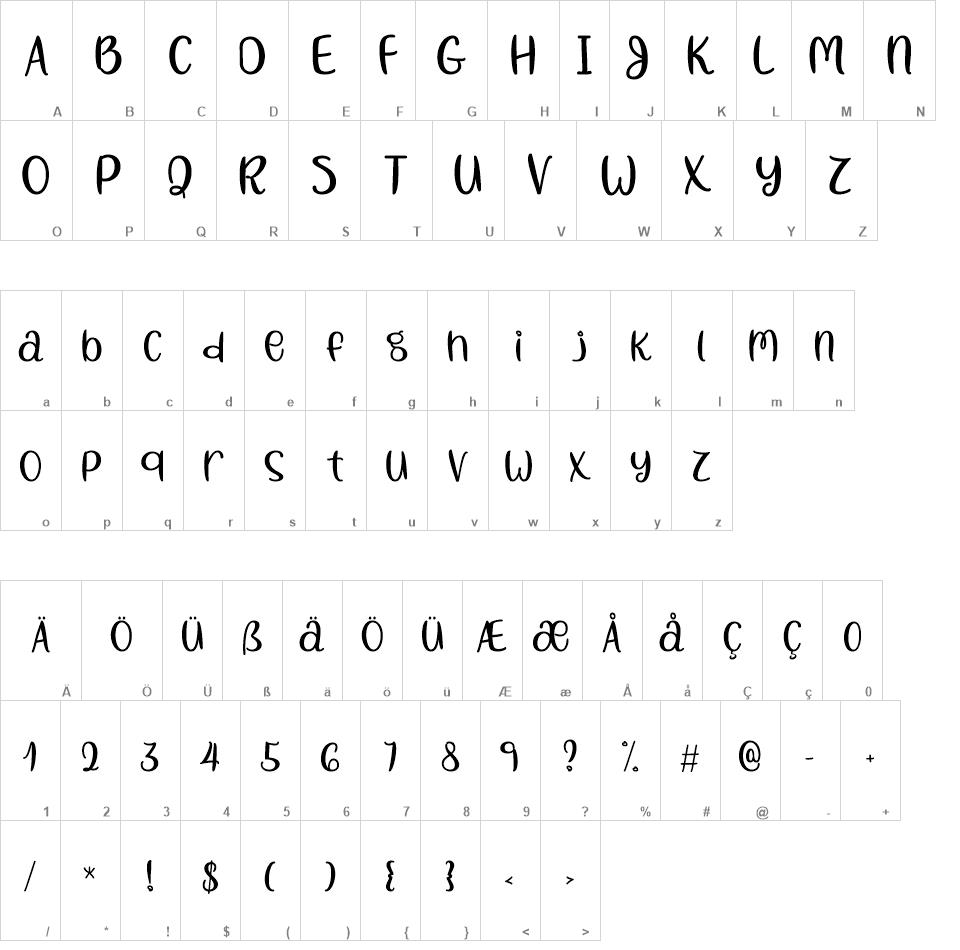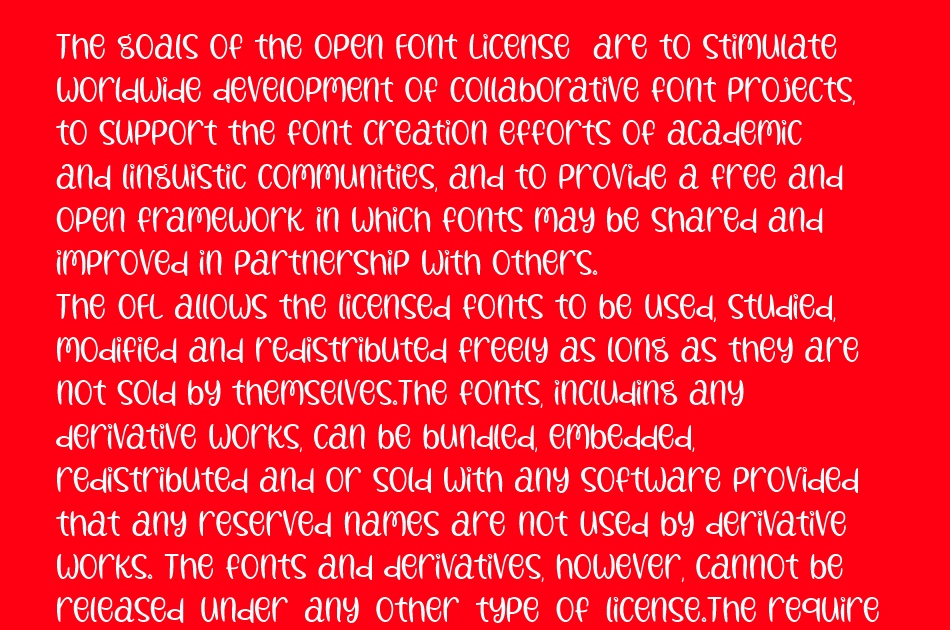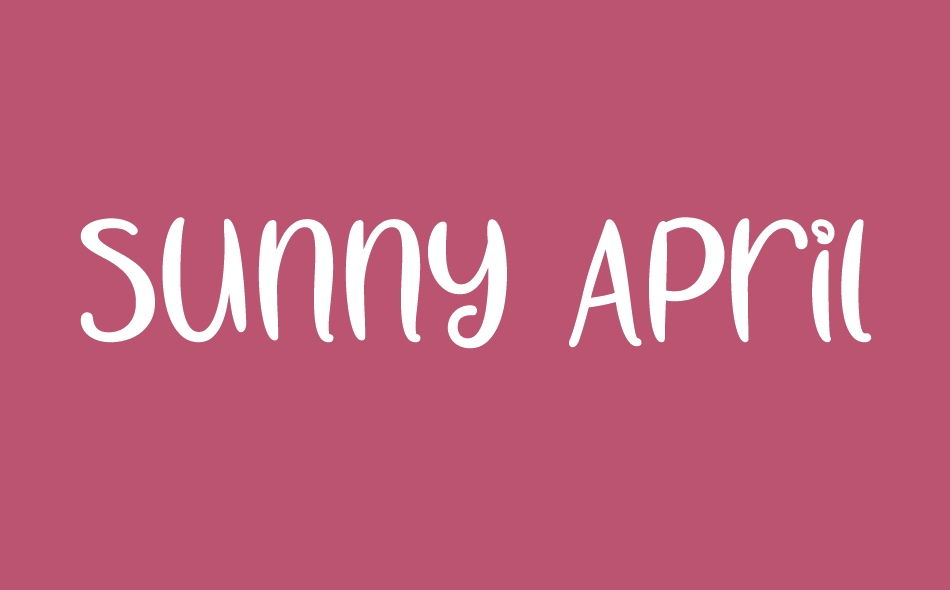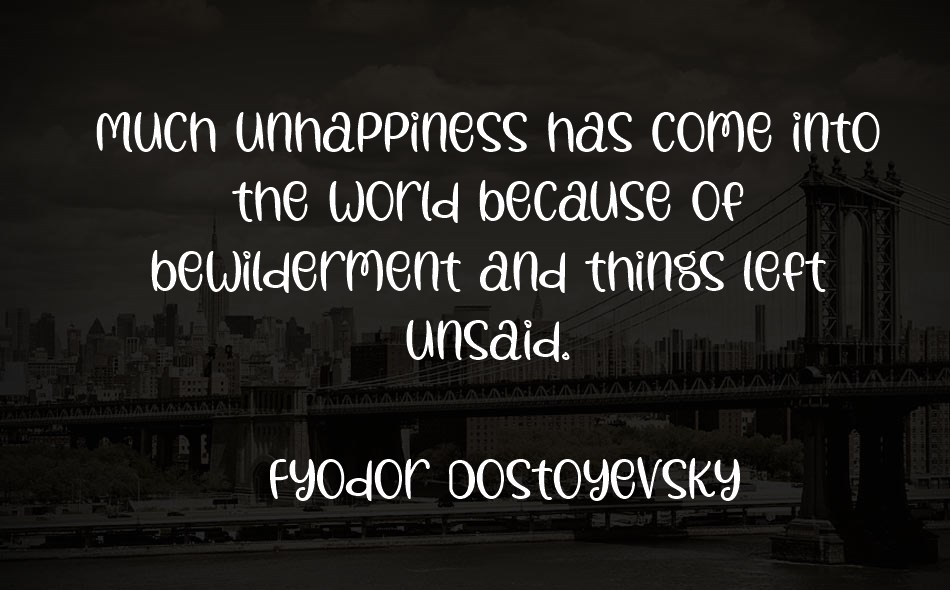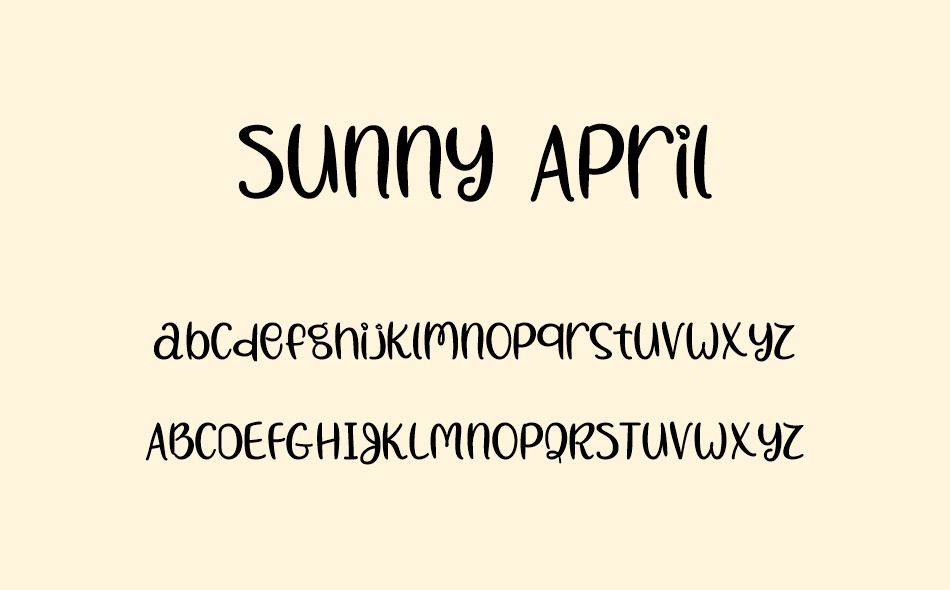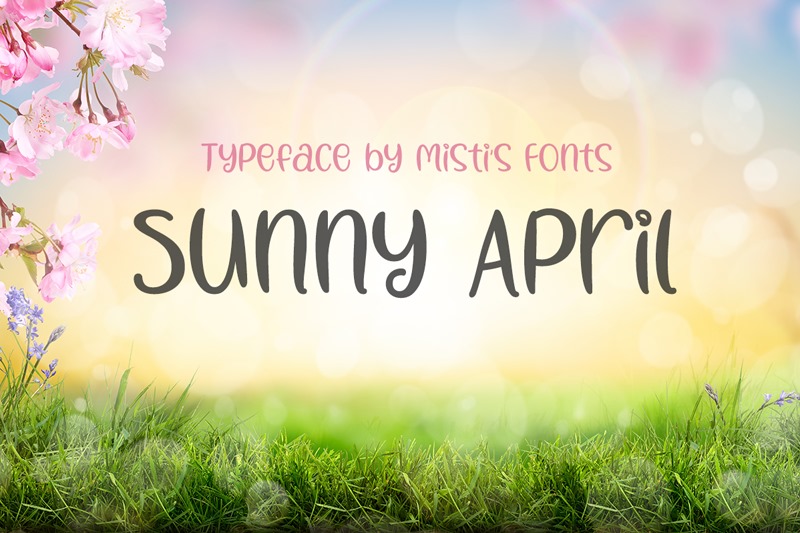
Sunny April font
Sunny April is an exquisite handwritten font, masterfully designed to become a true favorite. It maintains its classy calligraphic influences while feeling contemporary and fresh. Fall in love with it and bring your projects to the highest levels.